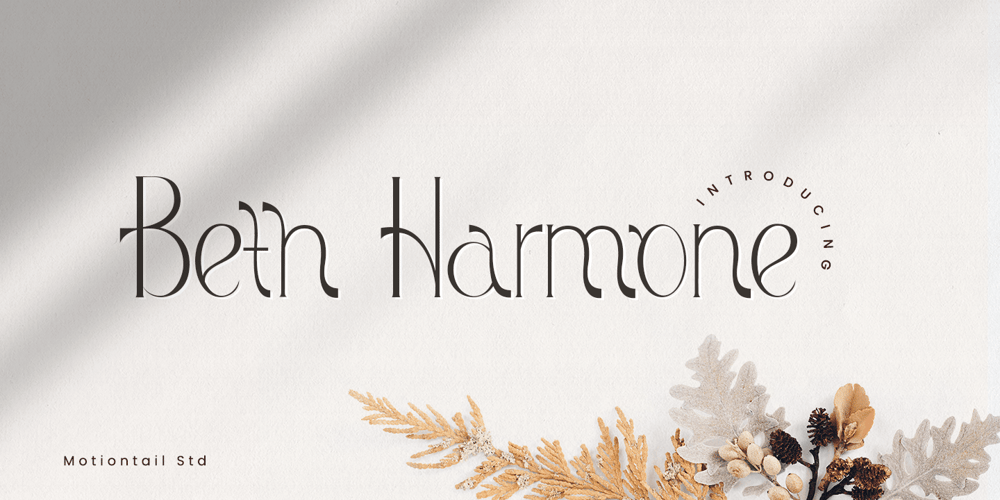
Beth Harmone Font Family was designed by Saiful and published by MotionTail. Beth Harmone contains 1 styles and family package options. Based on our experience as a graphic designer who works for a lot of companies, we often are requested to design a logo in a unique style but with an elegant shape. So, we try to brainstorming and create this font to make the idea is going out. This is perfect for BRANDING and LOGO DESIGN. You will get classy, elegant, and certainly unique logos with this font.Beth Harmone is also included full set of:· uppercase letters· multilingual symbols· numerals· punctuationWish you enjoy our font. 🙂